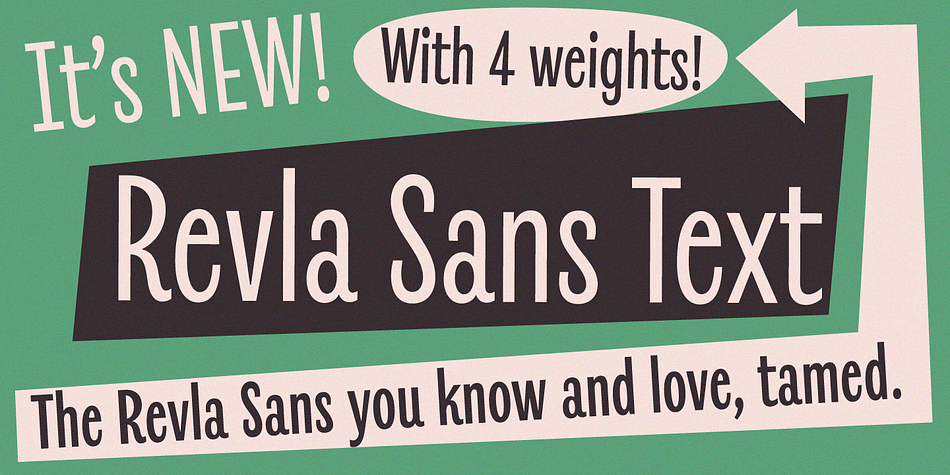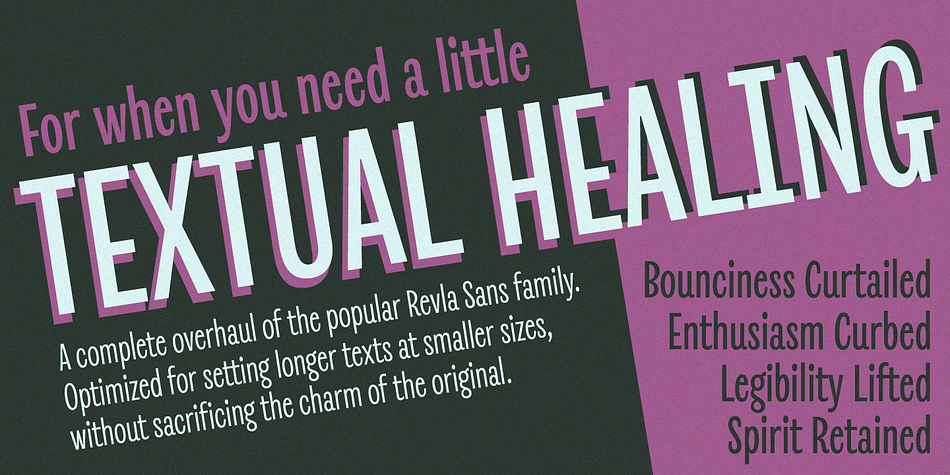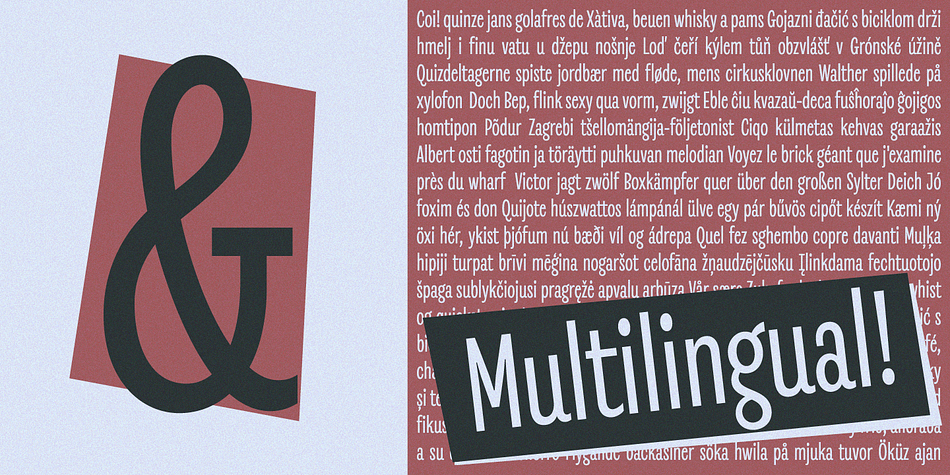
Revla Sans Text
Revla Sans Text is a sans serif and display sans font family. This typeface has four styles and was published by Schizotype Fonts.
Fun. Fun isn’t it? But sometimes you can have too much fun, and things can get out of hand. Revla Sans is, in certain situations, too much fun. So, without further ado, let me introduce the straight man to Revla Sans’s buffoon - Revla Sans Text.
It represents a complete overhaul of Revla Sans. The bounciness has been removed and details reined in, all for the purpose of optimizing the fonts for use in longer runs of text. ‘Text’ is perhaps a strong word here; you’re not going to be setting novels in this typeface. It still retains the charm of the original, and could well be used in display settings. Think of it like this - Revla Sans would be a great choice for the logo and branding of a board game, no? Revla Sans Text, then, would be good for setting the instructions, or body copy on the website.